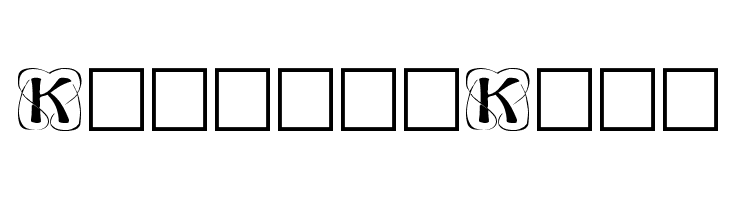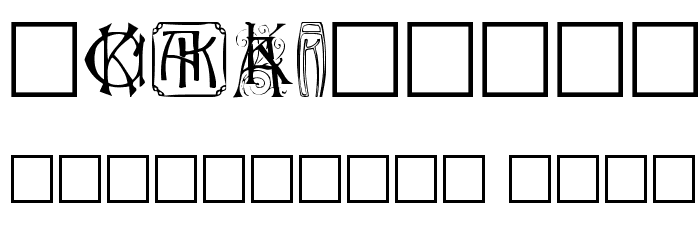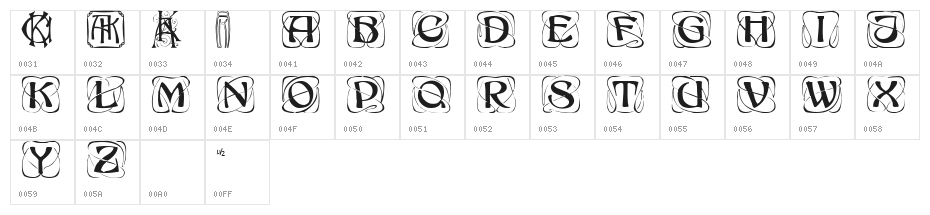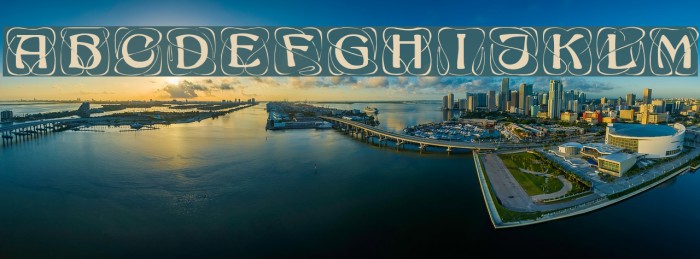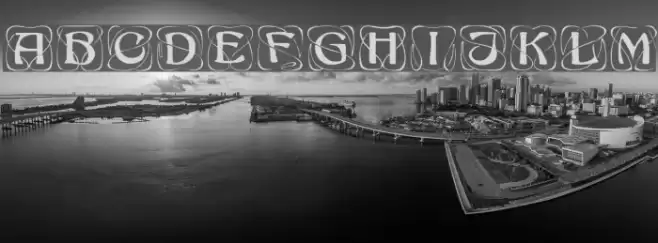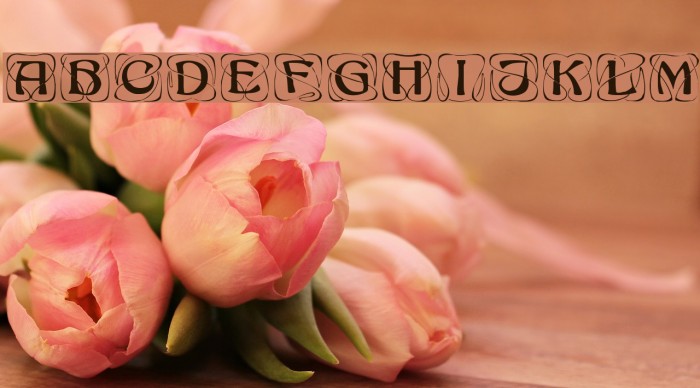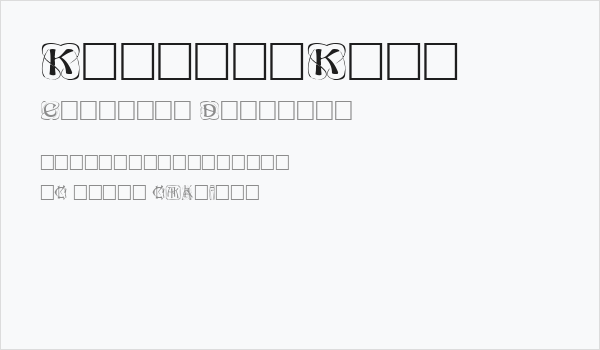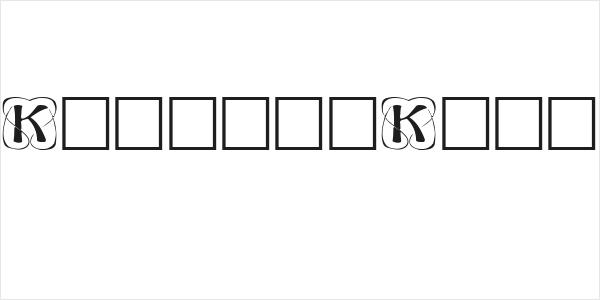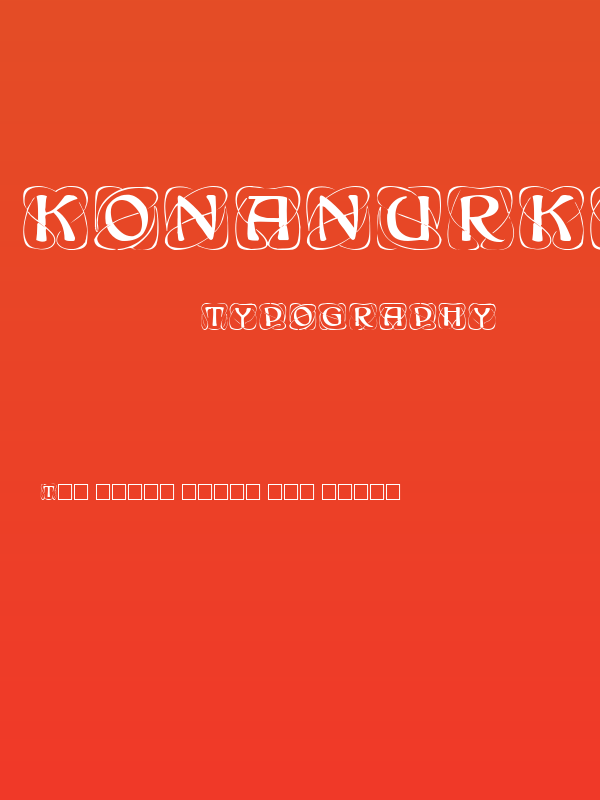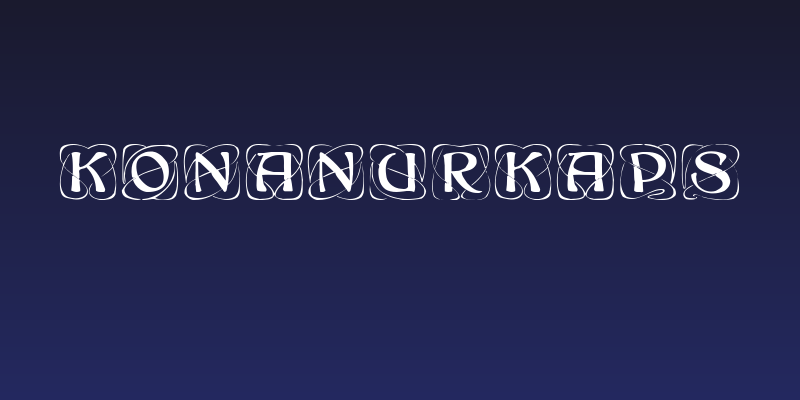
KonanurKaps Font
KonanurKaps Description
This decorative font features uppercase letters with intricate, swirling embellishments that create a sense of movement and complexity. Each character is enclosed in a square, adding a structured element to the otherwise fluid design. The font is highly stylized, with each letter uniquely adorned with loops and curves that give it a whimsical and artistic flair. The bold strokes and high contrast between the thick and thin lines enhance its visual impact, making it suitable for eye-catching designs. The absence of lowercase letters and numerals suggests a focus on decorative use rather than practical text applications.